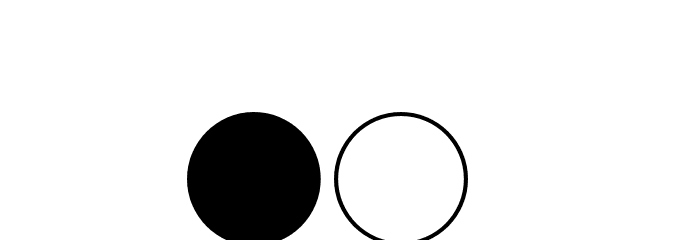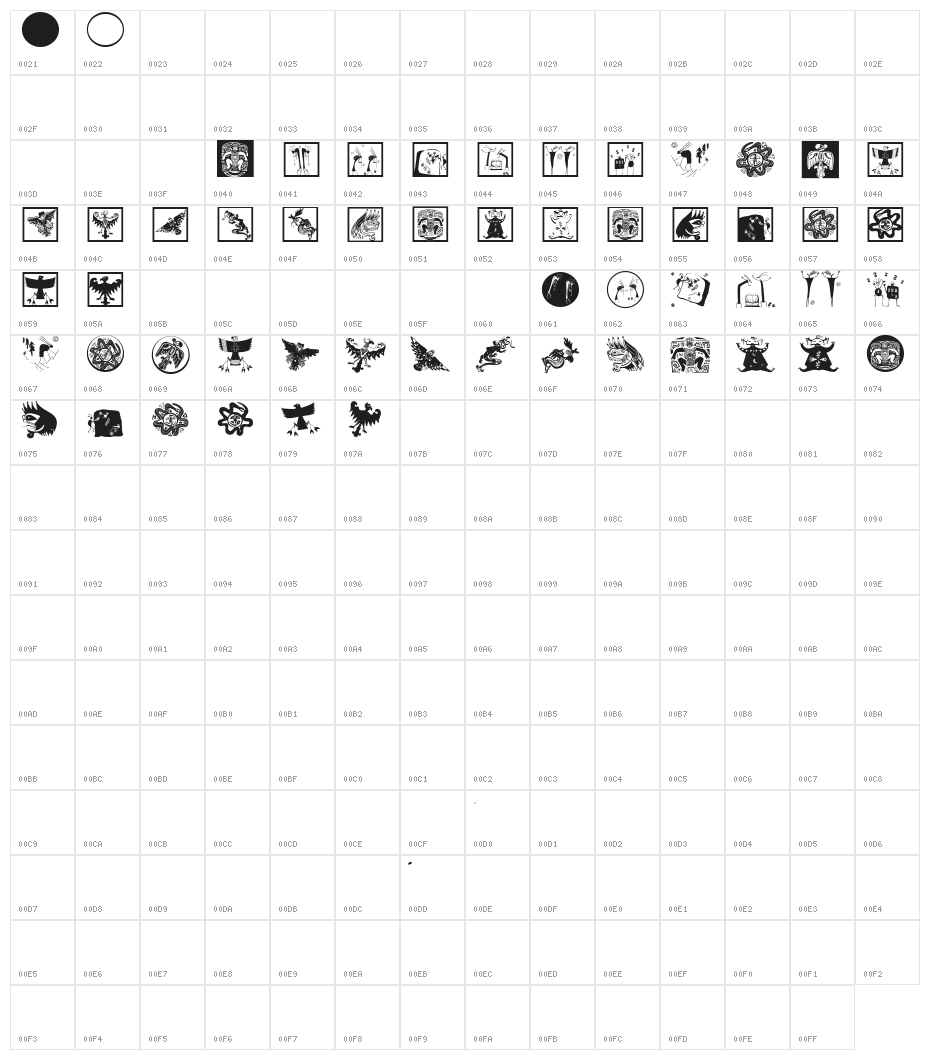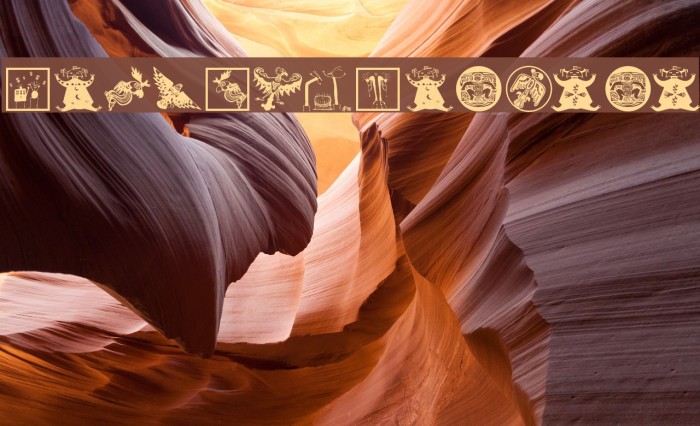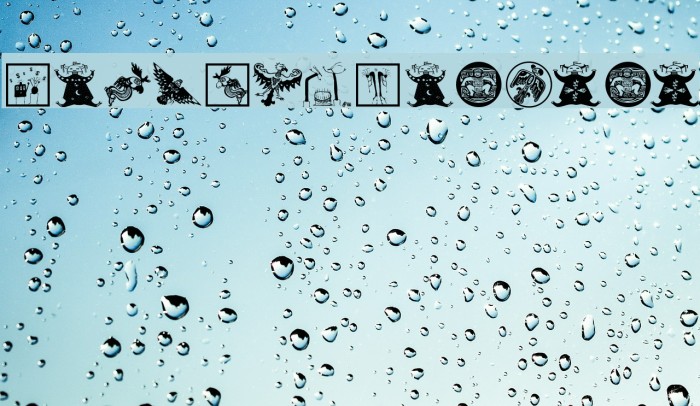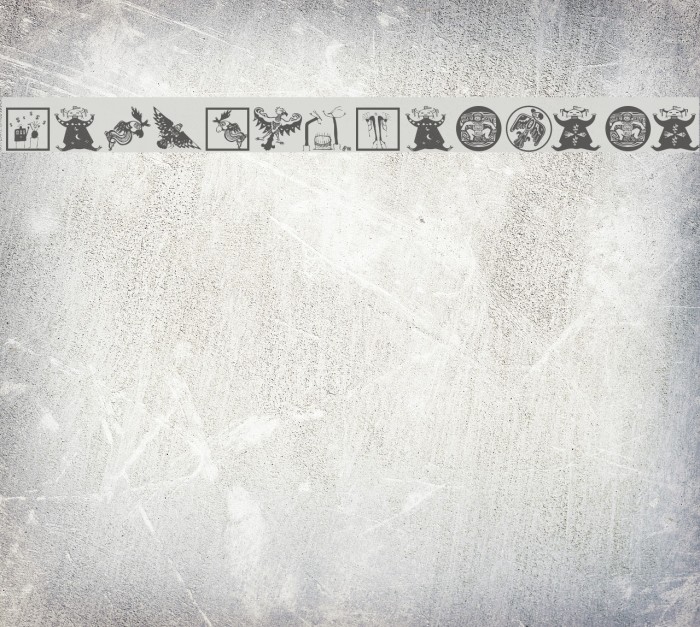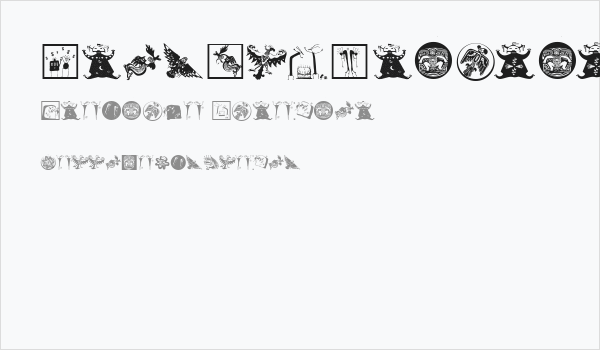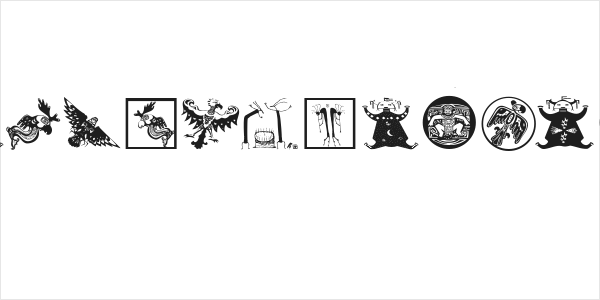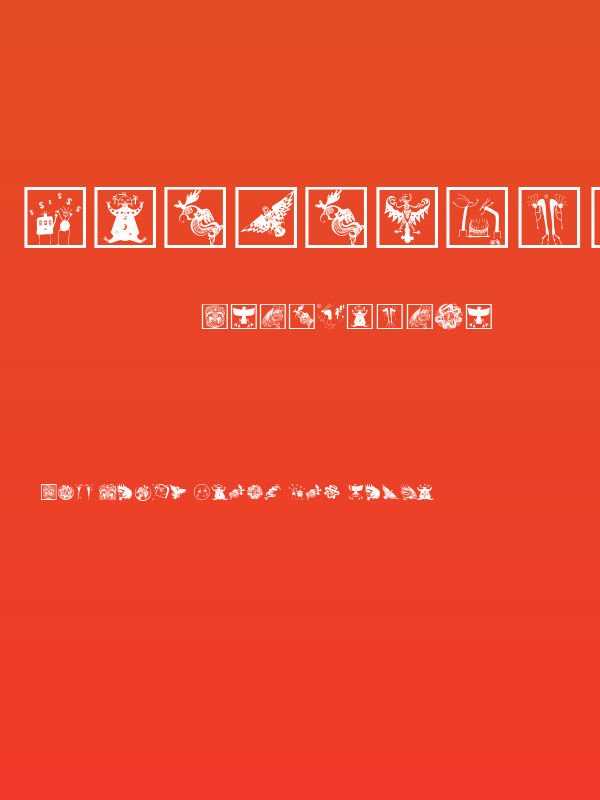
FromOldArtists Font
FromOldArtists Description
A decorative display font featuring hand-drawn, ancient or tribal-inspired pictograms and illustrations within square or circular frames. The glyphs are highly stylized, with bold black and white contrasts, and depict animals, human figures, and abstract motifs reminiscent of historical or indigenous artwork.
| Overall Style | Decorative, Vintage, Tribal |
| Use Case | Logos, Headlines, Themed graphics, Artistic projects |
| Proposed Projects | Posters, book covers, educational materials, branding for cultural events, art projects, themed invitations. |